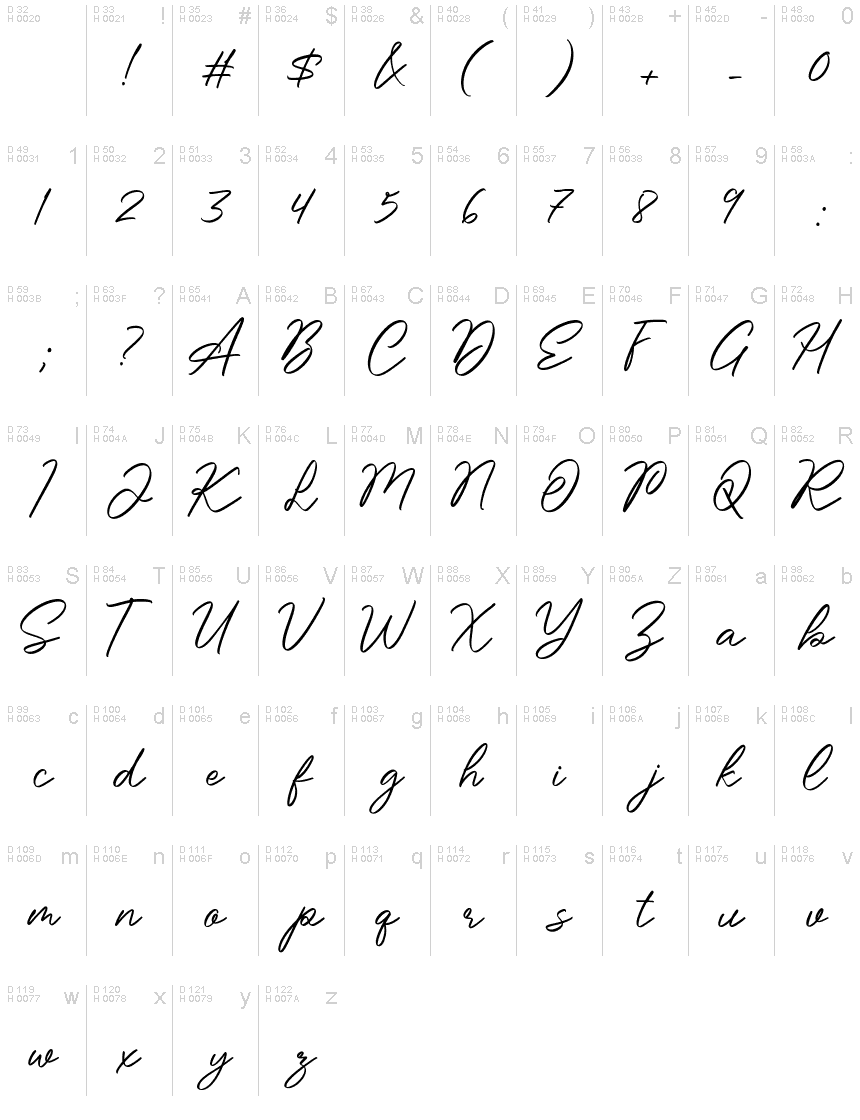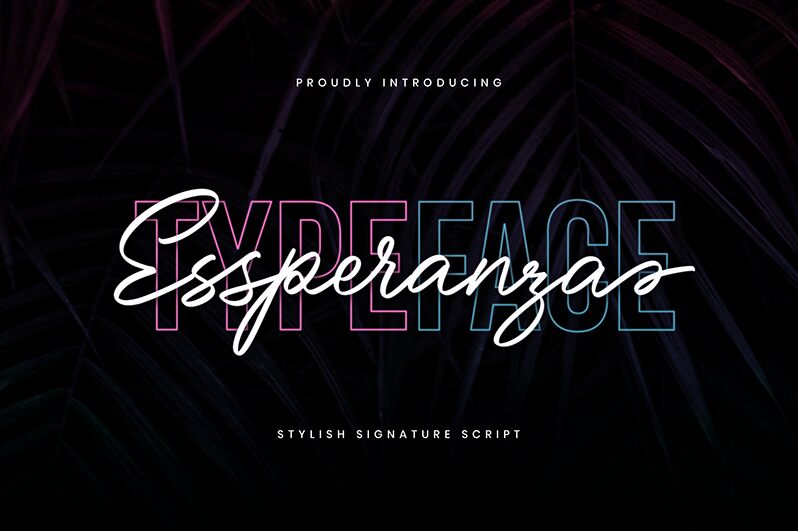
Essperanza Regular
Essperanza is a beautiful handwritten font designed by Rian Rahardi. With its light and graceful style, this font is perfect for adding a personal touch to your projects. Whether you're creating a wedding invitation, designing a logo for a boutique brand, or adding text to a lifestyle blog, Essperanza is a versatile choice that will bring elegance and charm to any project.